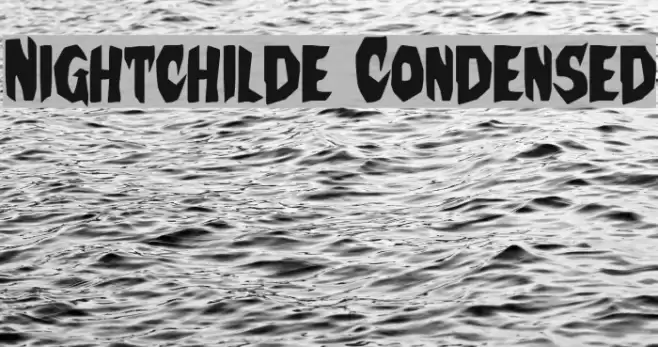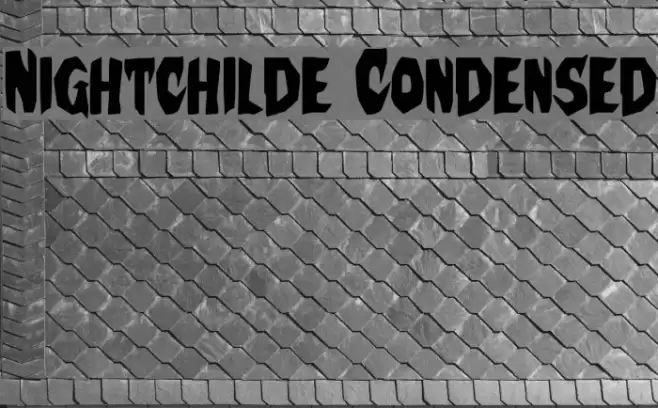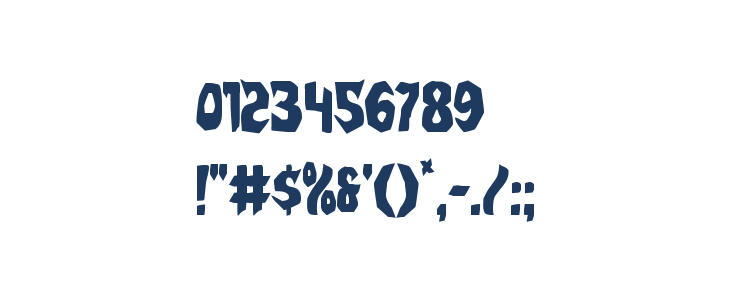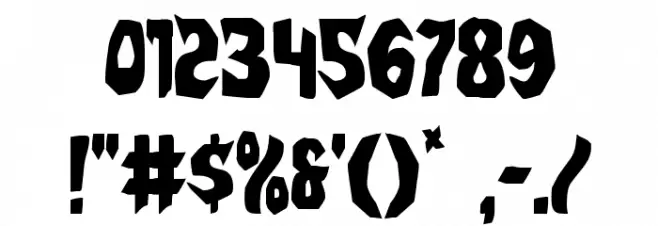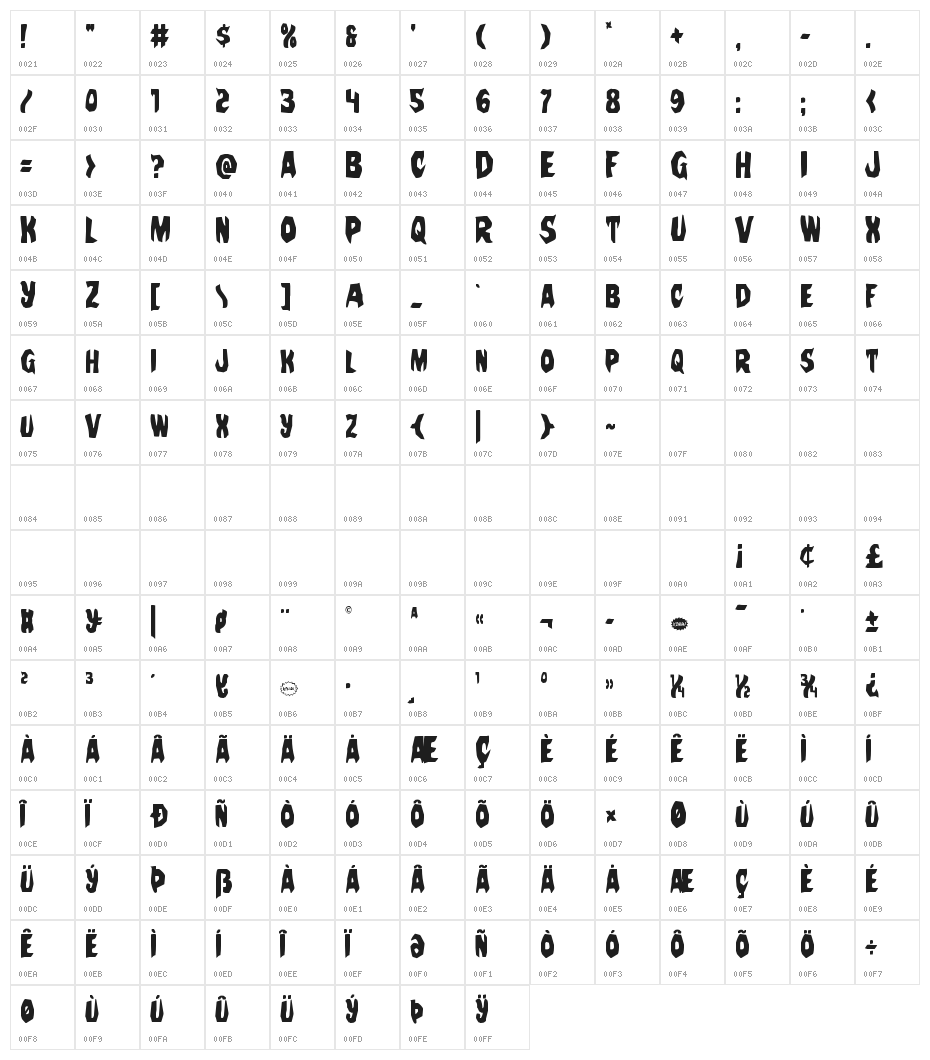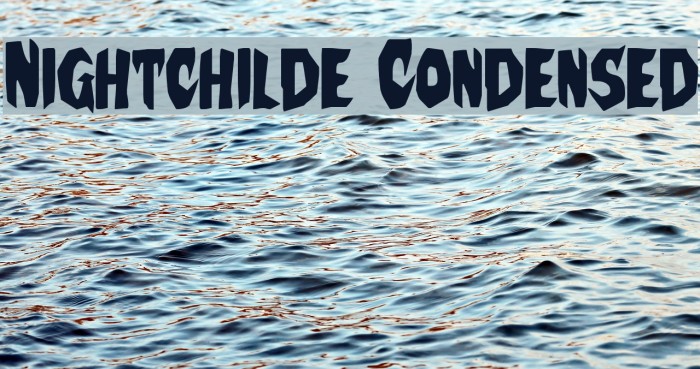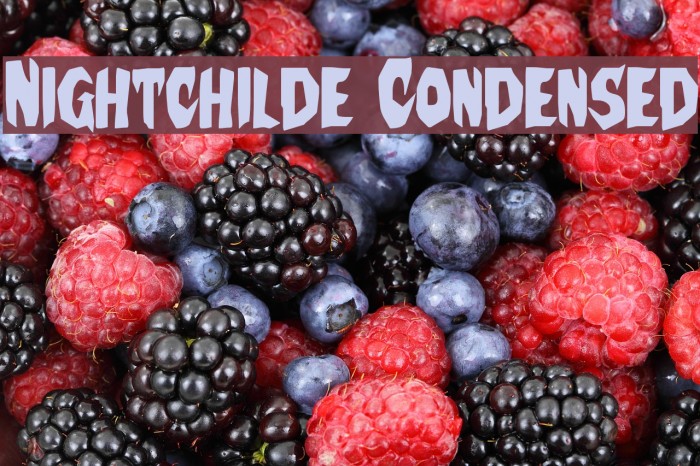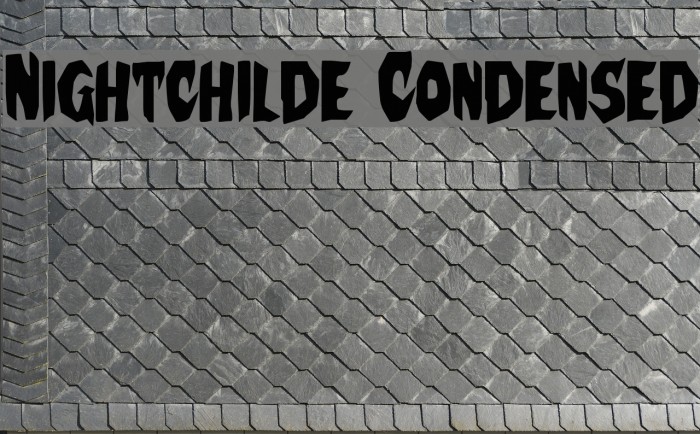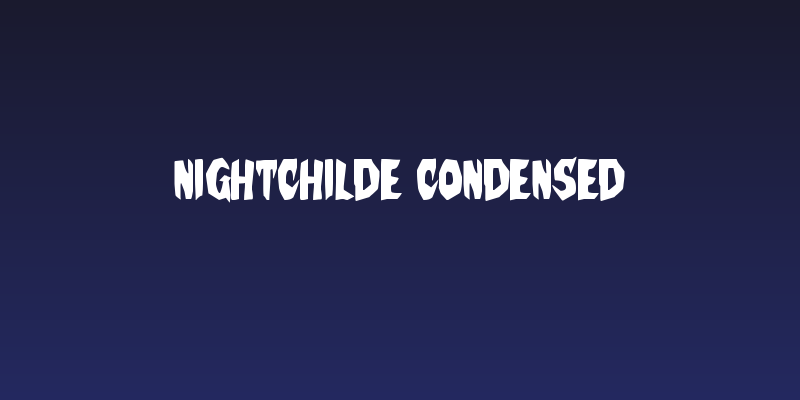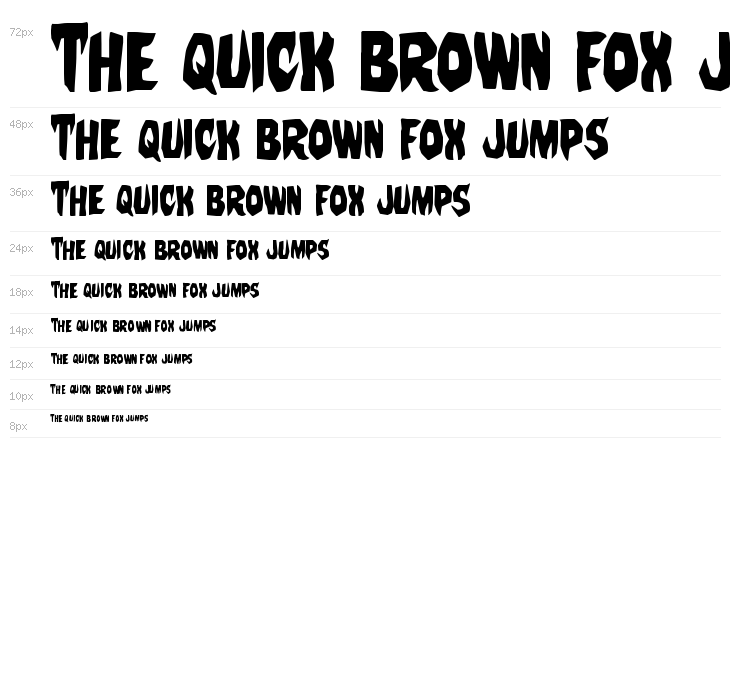
Nightchilde Condensed Font
Nightchilde Condensed Description
This font features a bold and condensed style with a distinctive, jagged appearance. The characters are uniquely shaped, giving off an edgy and dynamic vibe. The uppercase and lowercase letters maintain a consistent height, enhancing the condensed look. The numbers and special characters follow the same bold and irregular design, making the font suitable for eye-catching displays. Its sharp angles and irregular strokes create a sense of movement and energy, perfect for projects that require a strong visual impact.
A bold, condensed font with jagged, dynamic characters from Uncategorized fonts.
- Proposed Projects: Ideal for posters, album covers, video game titles, and any project needing a bold, edgy aesthetic.
- Overall Style: Modern, Edgy